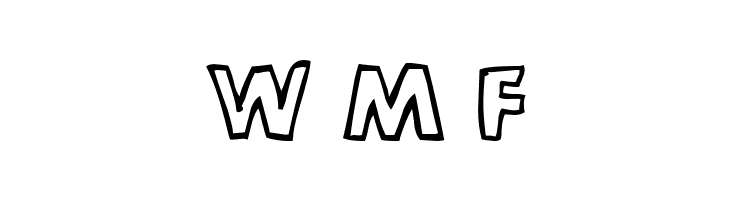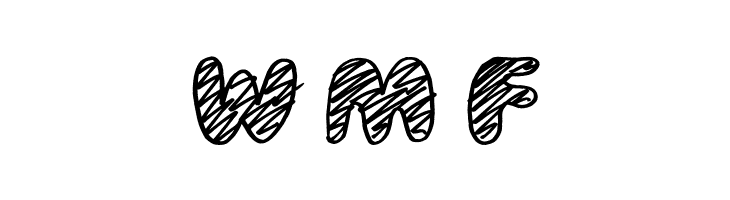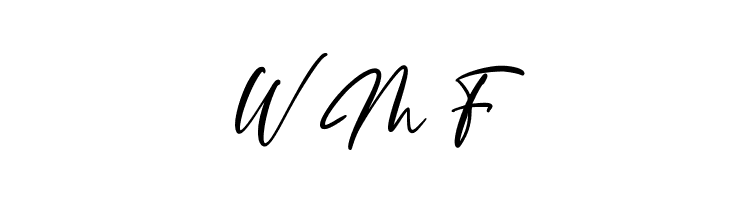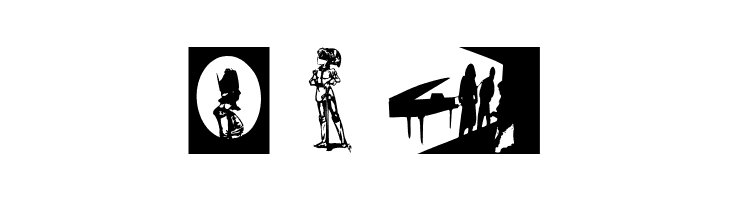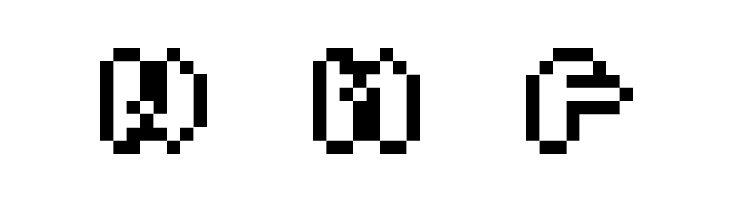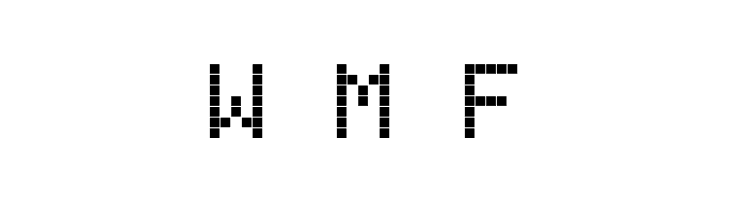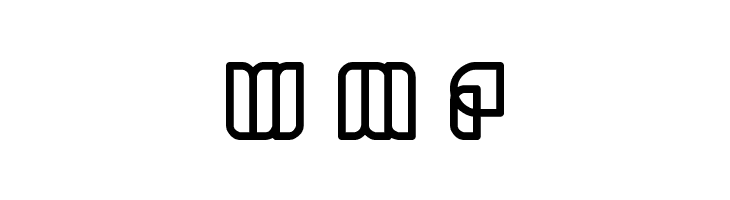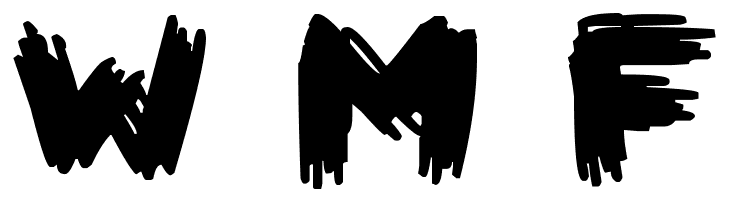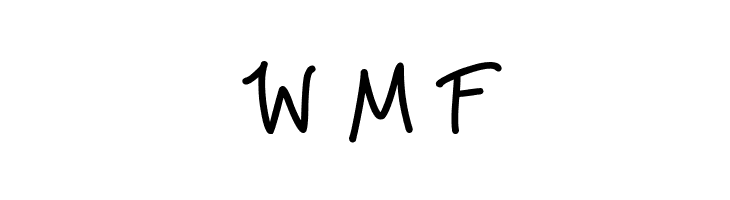
A bold, geometric font with high contrast and unique cutouts.
A bold, playful font with thick strokes and dynamic character shapes.
Bold, modern school and education-themed icon set.
A bold, playful font with a 3D effect and cartoonish style.
A bold, hand-drawn font with a playful scribble texture.
A playful, bold font with a hand-drawn, chalkboard-like style.
A bold and ornate Blackletter font with a medieval aesthetic.
A bold, futuristic typeface with geometric structure and consistent stroke width.
A futuristic, geometric font with bold, outlined characters and a science fiction vibe.
A futuristic, geometric font with bold, interconnected lines and rounded corners.
A pixelated, retro-style font with a bold, geometric design.
A pixelated, outline font with a retro digital aesthetic.
A collection of intricate silhouette illustrations, not a traditional font.
A decorative, hand-drawn font with tribal-inspired patterns and tall, narrow letters.
An elegant and fluid script font with a handwritten appearance.
A bold, modern font with clean lines and balanced spacing.
A whimsical dingbat font with abstract faces and artistic illustrations.
A bold, distressed font with a scratch-like texture, perfect for dynamic and edgy designs.
A distressed, graffiti-like font with jagged, uneven strokes and a rebellious aesthetic.
A bold, graffiti-style font with dynamic and expressive strokes.
A bold, distressed font with a grunge aesthetic and chaotic texture.
A pixelated, retro-style font with a blocky, geometric design.
A bold, industrial-inspired font with gear-like cut-out shapes.
A bold, intricate blackletter style with dramatic, ornate characters.
A bold, brush-style font with an energetic, hand-painted look.
An elegant and flowing script font with classic, cursive styling.
A playful, stitched-style font with a handmade aesthetic.
A playful, casual handwritten font with an organic flow and friendly appearance.